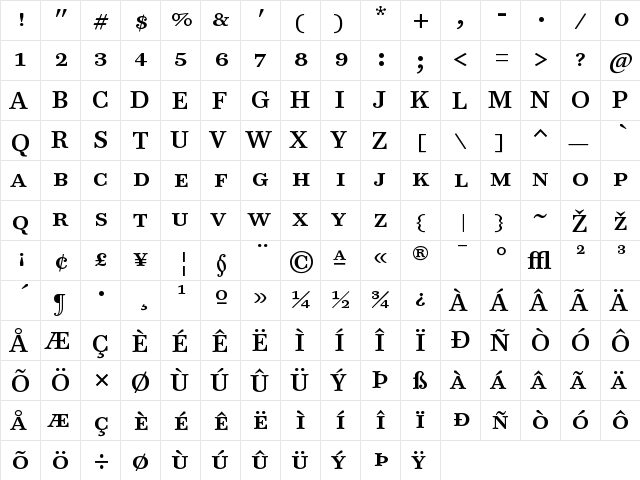
PB6TTP-RomanSC Regular
Design Context for PB6TTP-RomanSC Typeface
PB6TTP-RomanSC is a composed and adaptable typeface that performs quietly and consistently across a wide range of design contexts.